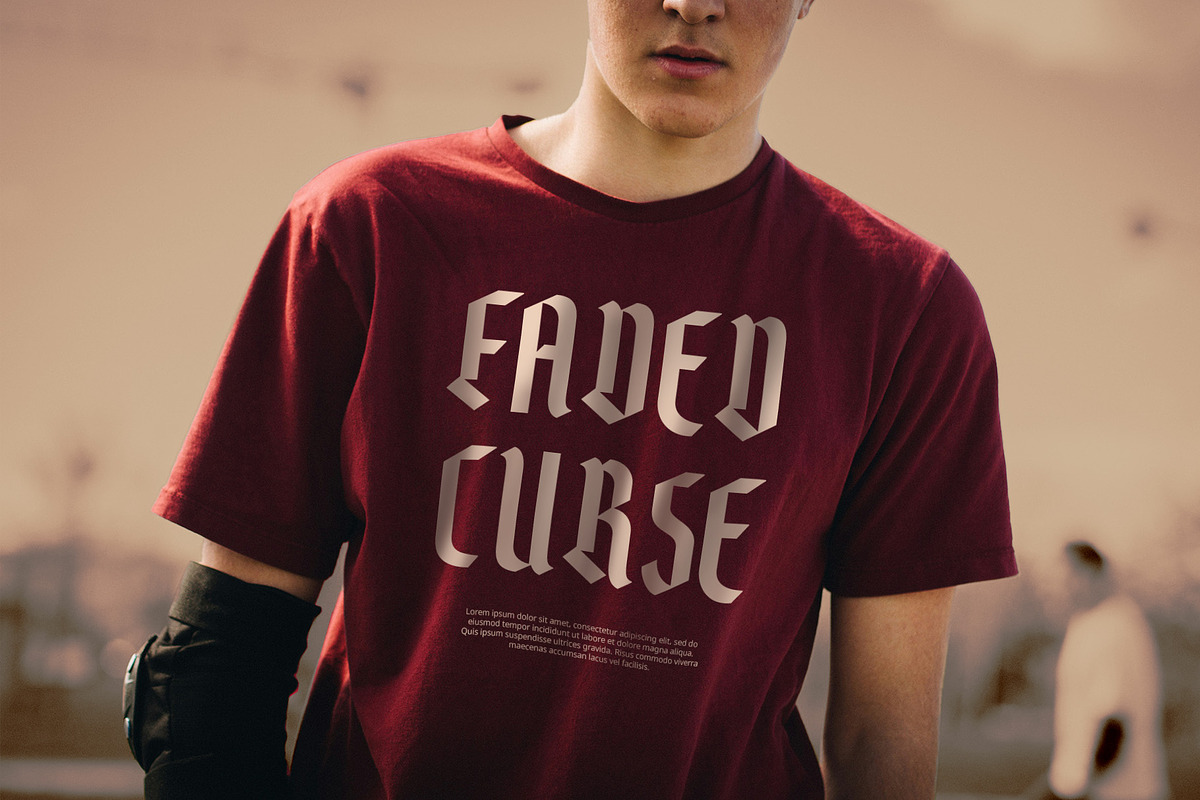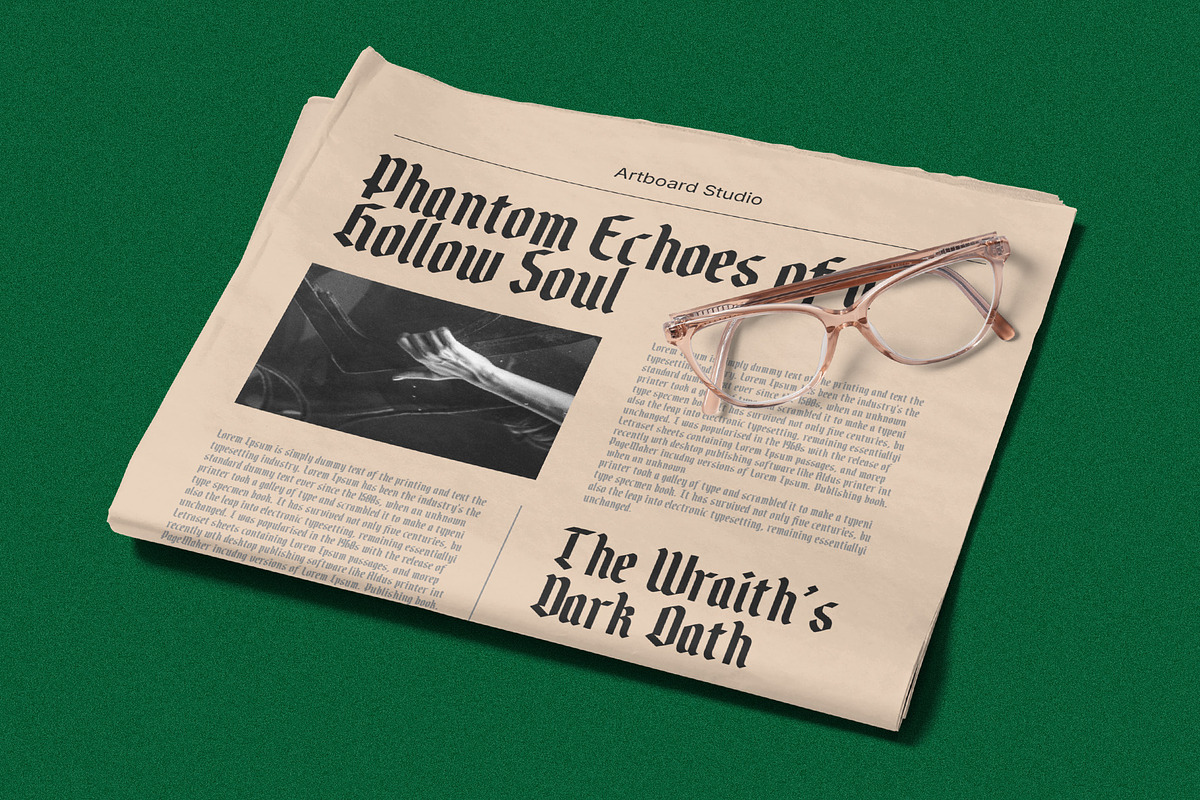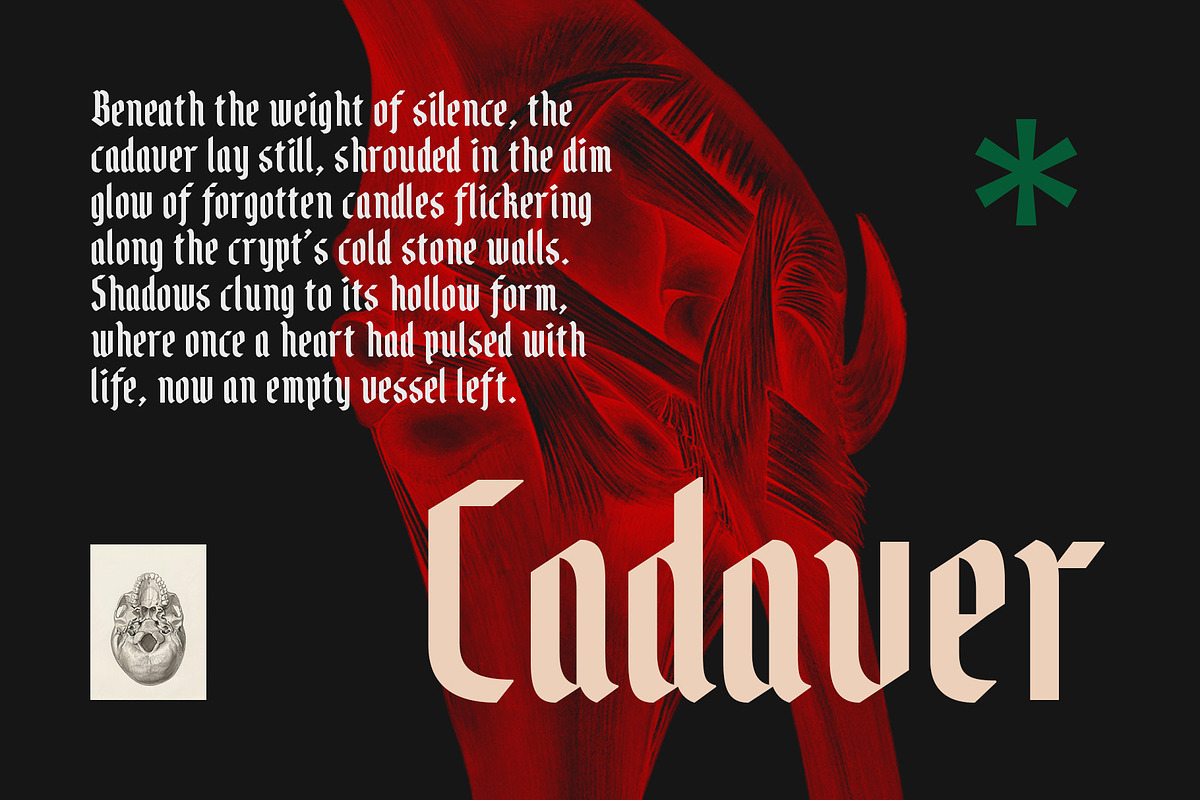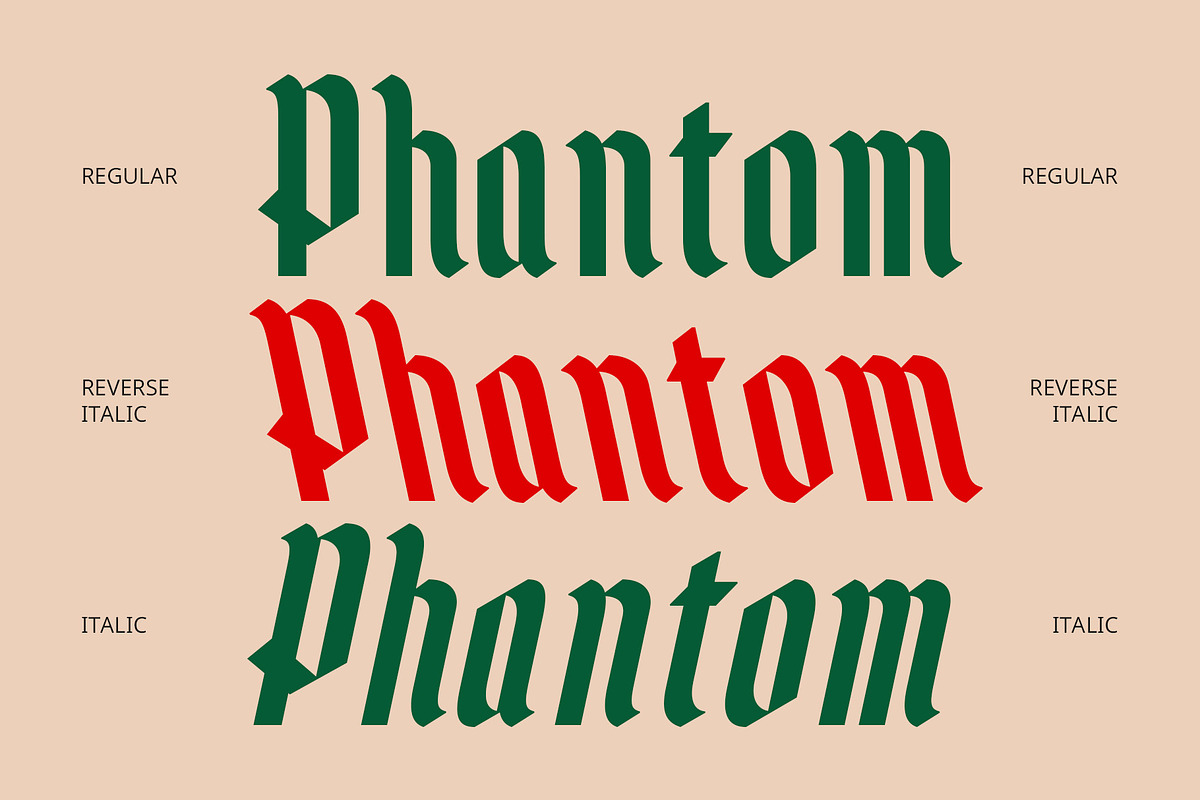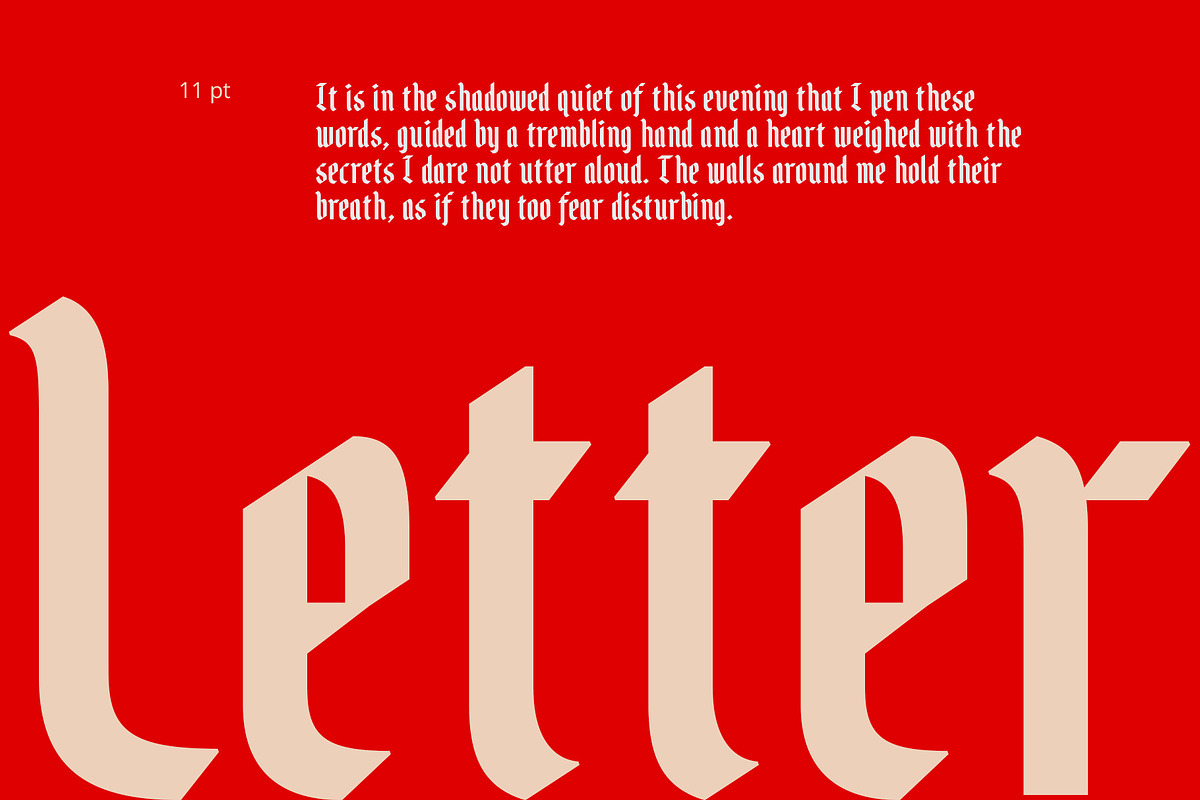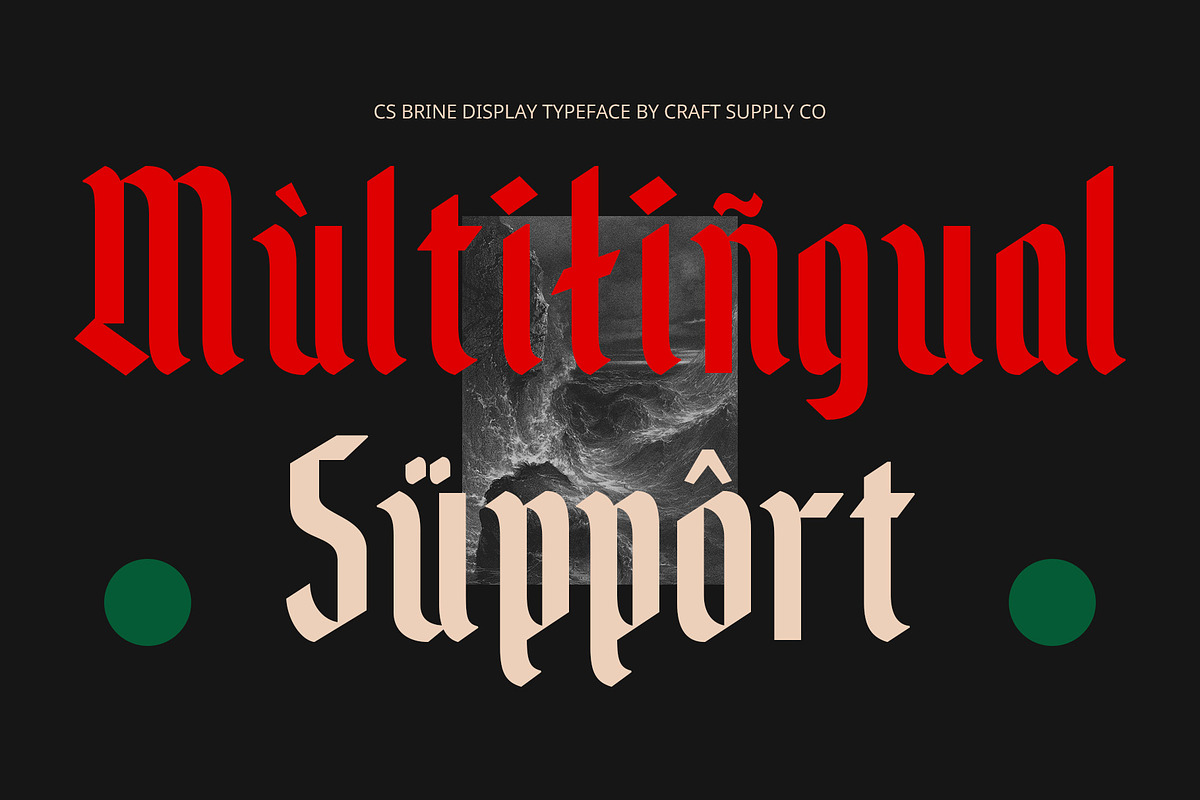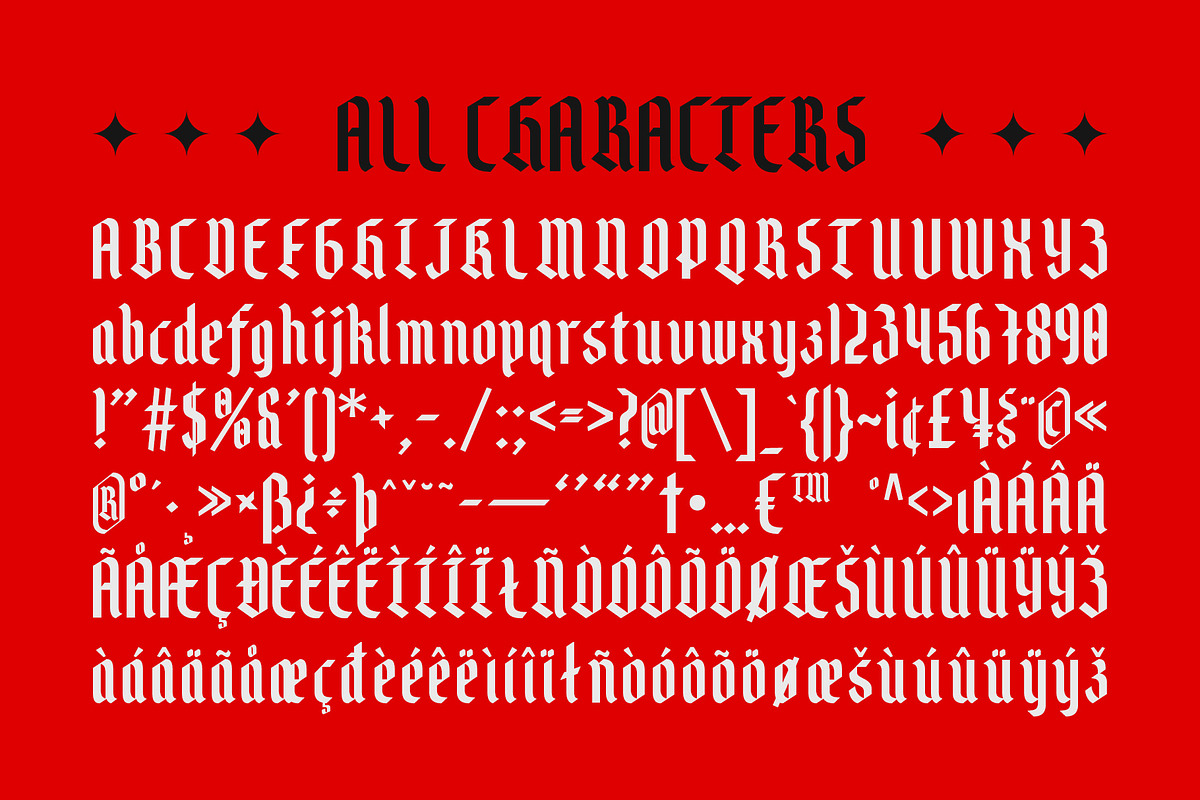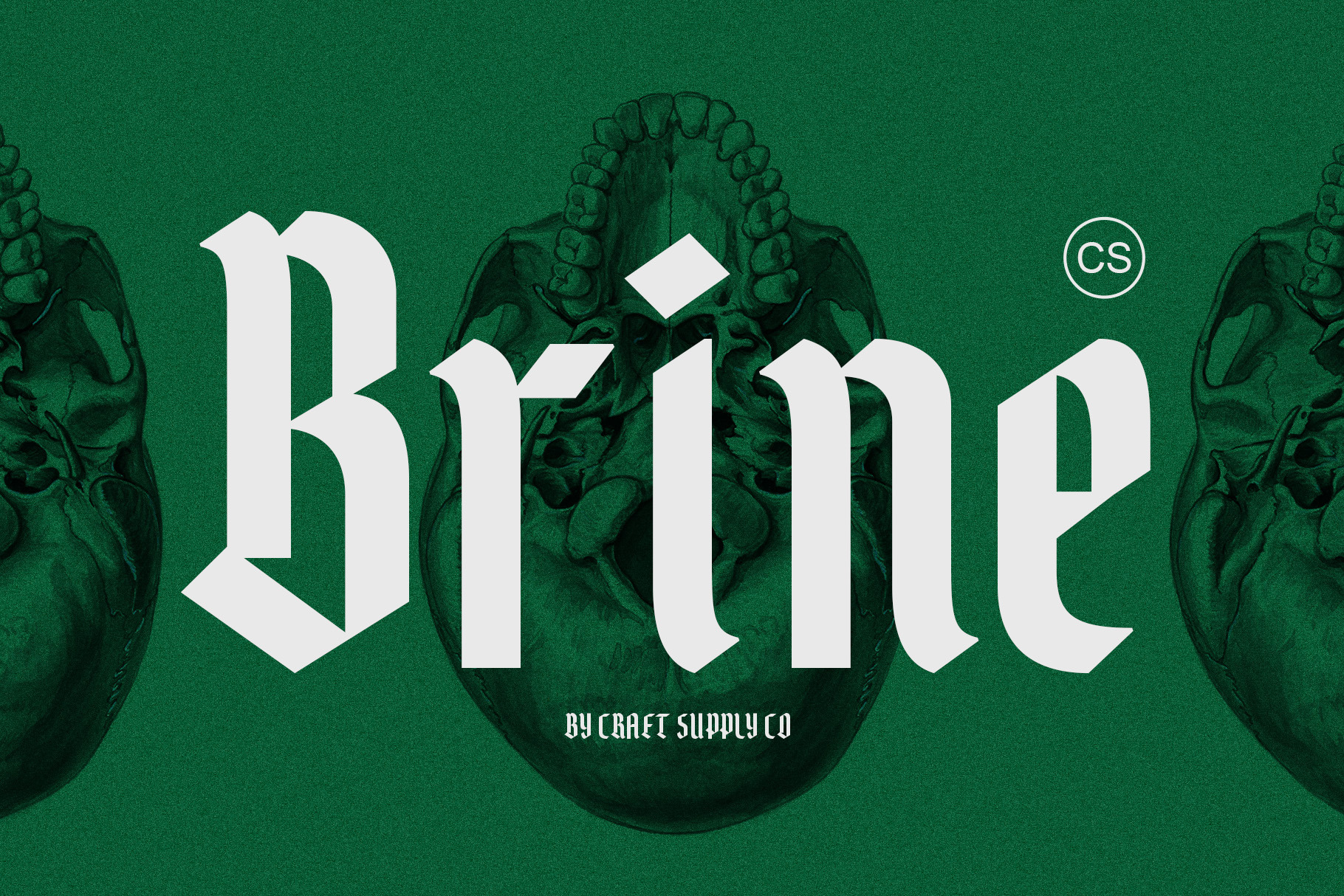
CS Brine – Blackletter Font
CS Brine – Blackletter Font: Embrace the Elegance of History
Intricately Crafted Blackletter Display Font CS Brine – Blackletter Font is a stunning display font that captivates with its richly detailed letterforms and bold, sharp shapes. Each character is a work of art, showcasing intricate ornaments that echo the beauty of traditional blackletter typography. This font embodies the essence of classic design, inviting viewers to experience a visual journey into a time of elegance and craftsmanship.
Classic and Dramatic Aesthetic The impression created by CS Brine is undeniably classic and dramatic, evoking a sense of historical significance reminiscent of medieval handwriting. Its boldness commands attention, while the ornate details add a layer of sophistication that is perfect for projects seeking to convey a sense of heritage and artistry. The combination of bold and intricate elements ensures that this font makes a lasting impact in any application.
Versatile for Diverse Applications This blackletter font is particularly well-suited for a variety of design applications, including formal invitations, brand logos for those wishing to highlight cultural heritage, and poster designs that emphasize vintage and gothic themes. Whether you’re crafting a unique wedding invitation or creating a captivating poster for a themed event, CS Brine offers the versatility to adapt to different contexts while maintaining its strong identity.